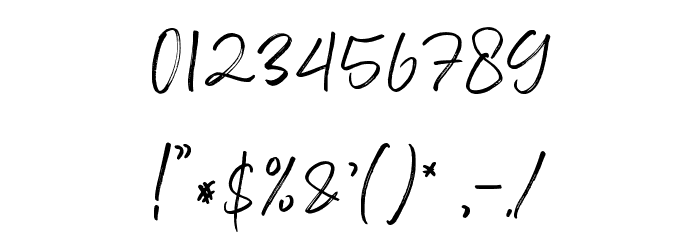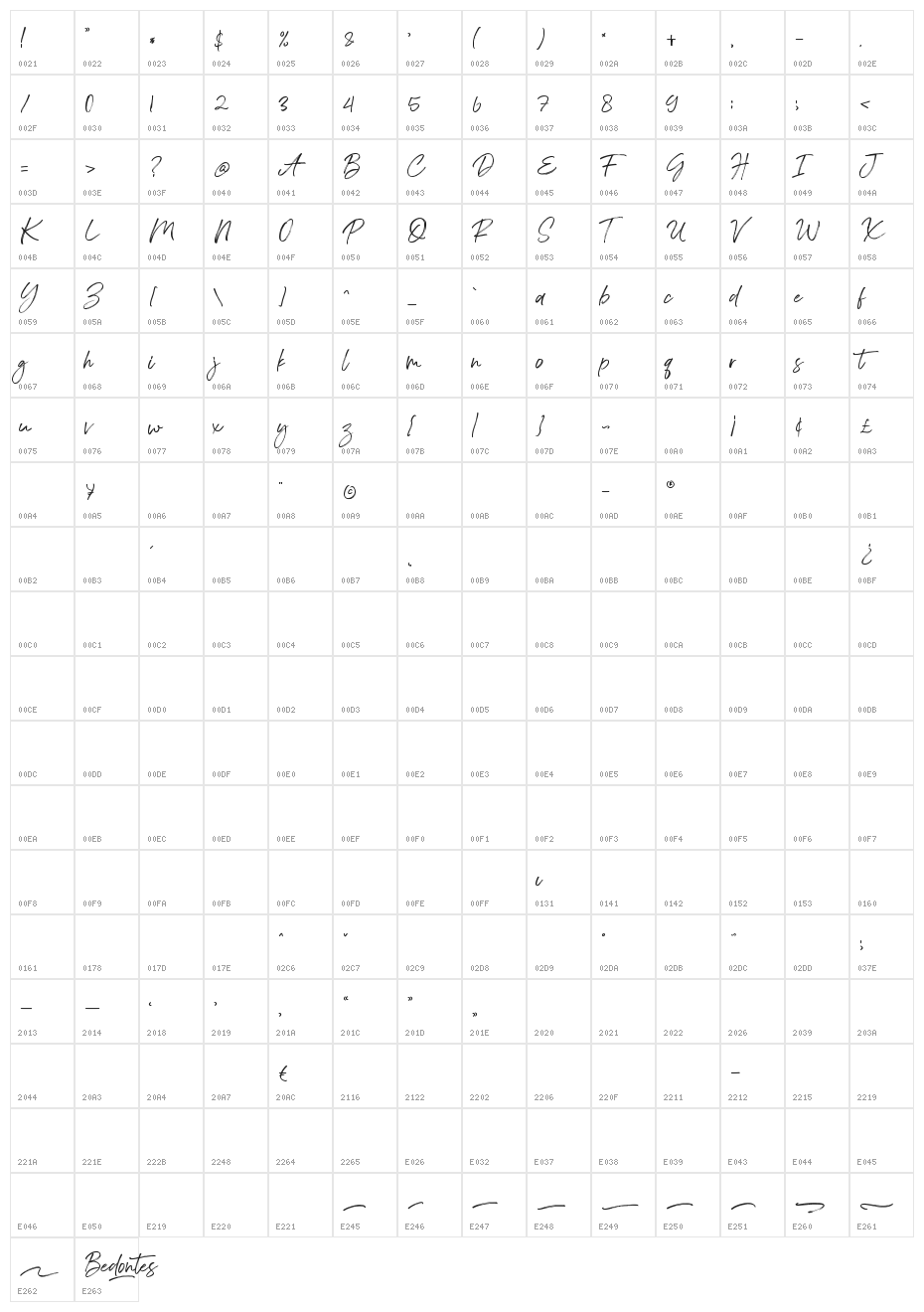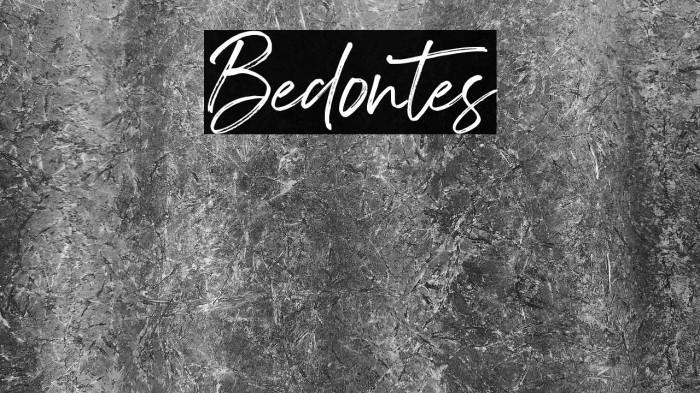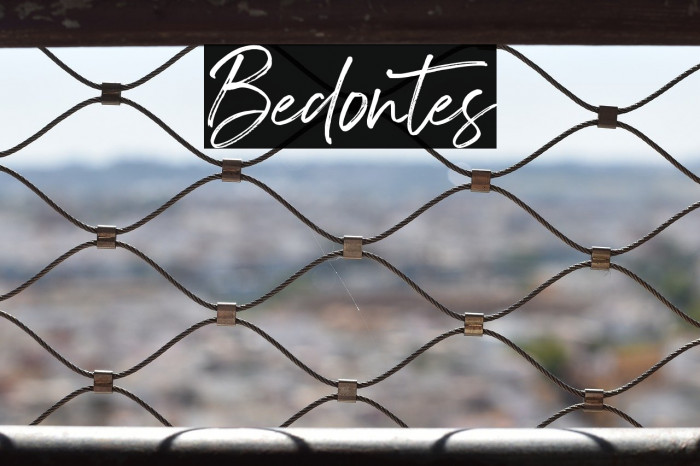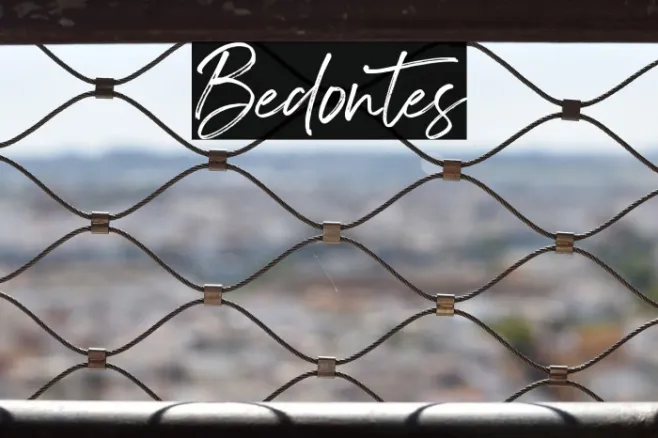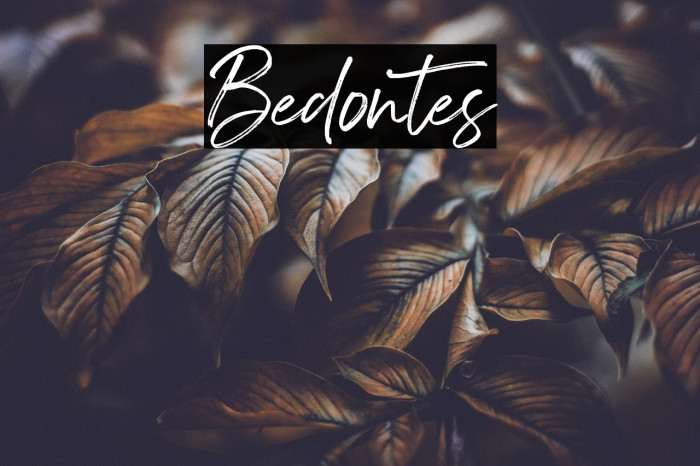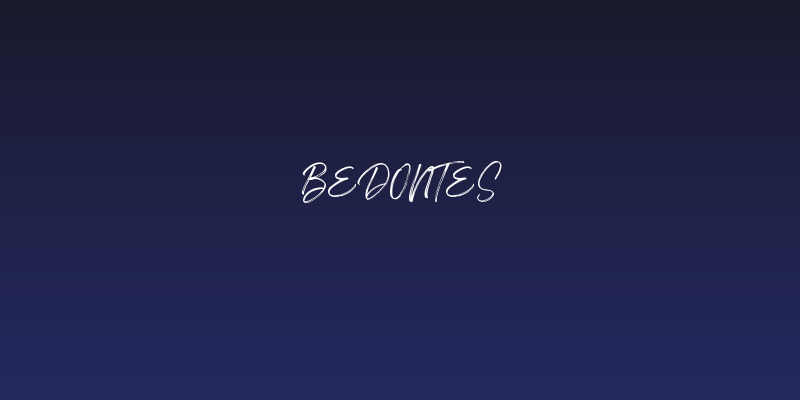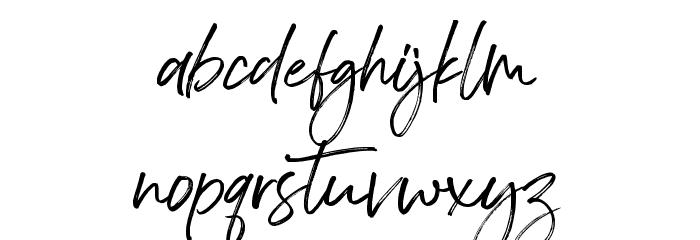
Bedontes Font
Bedontes Description
This font exudes a dynamic and expressive handwritten style, characterized by its fluid and cursive strokes. The letters are elegantly connected, giving a sense of motion and grace. The uppercase letters are bold and sweeping, while the lowercase letters maintain a consistent flow, enhancing readability. Numbers and special characters are designed with the same fluidity, ensuring a cohesive look across all text elements. The overall appearance is both artistic and sophisticated, making it suitable for creative and formal applications.
| Use Case | Logos, Invitations, Social Media |
| Proposed Projects | Ideal for wedding invitations, greeting cards, branding projects, and social media graphics. |